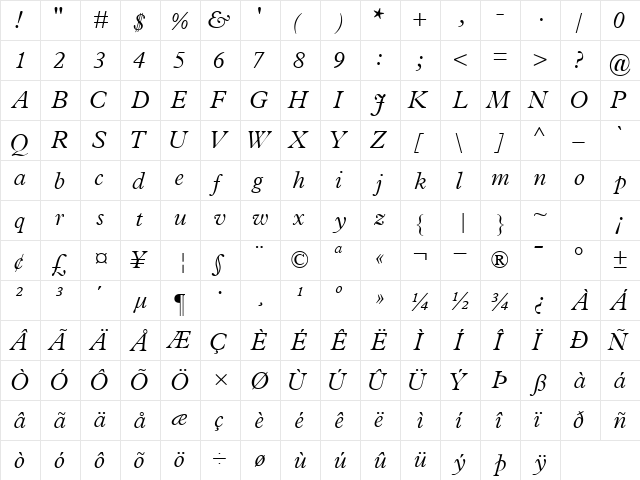
TerminusLightSSK Italic Font Preview
Design Context for TerminusLightSSK Typeface
TerminusLightSSK offers clean, dependable letterforms without strong stylistic allegiance, making it a practical choice for designers who need flexibility. The slanted form adds forward momentum and visual energy. The delicate stroke weight brings airiness and refinement to layouts.
Pro Tip: Try TerminusLightSSK for annotation and caption copy alongside an upright companion — the contrast in angle creates a dynamic but ordered typographic system.